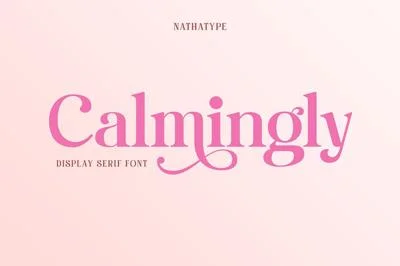
Calmingly Font
Calmingly Font is perfect for meditation center branding, wellness spa signage, yoga studio materials, mindfulness app interfaces, relaxation therapy promotions, peaceful retreat centers, mental health counseling offices, stress relief product packaging, zen garden displays, and any project requiring tranquil serenity with therapeutic calm and restorative peaceful energy.
What makes Calmingly Font exciting is its therapeutic tranquility and peaceful presence that embodies the restorative power of mindful relaxation and the healing essence of inner peace. The typeface features gentle, flowing letterforms with soft curves and soothing proportions that evoke the calming rhythm of deep breathing and the serene beauty of quiet contemplation. Its peaceful character design speaks to audiences who seek stress relief, mental wellness, and the transformative benefits of mindful living, making it perfect for wellness brands seeking to communicate healing, restoration, and the profound peace that comes from connecting with inner stillness and therapeutic self-care practices.
Calmingly Font family includes light, regular, and medium weights with complete character sets featuring uppercase and lowercase letters, zen-inspired numerals, peaceful punctuation marks, and meditative decorative elements. The typeface incorporates therapeutic design principles and calming visual aesthetics that enhance its soothing appearance while maintaining excellent readability across all wellness applications and mindfulness-focused design projects.
Whether you're creating wellness brand identity, designing therapeutic marketing materials, or developing mindfulness educational content, Calmingly Font provides the perfect typographic foundation that promotes peace and mental wellness. The font's calming appeal and therapeutic character make it particularly effective for meditation centers, wellness practitioners, and mental health professionals. Its peaceful aesthetics translate beautifully across spa signage, wellness publications, and digital platforms, ensuring your brand communicates the kind of authentic tranquility and therapeutic wisdom that resonates with individuals seeking stress relief, mental balance, and the healing journey toward inner peace and emotional wellbeing.